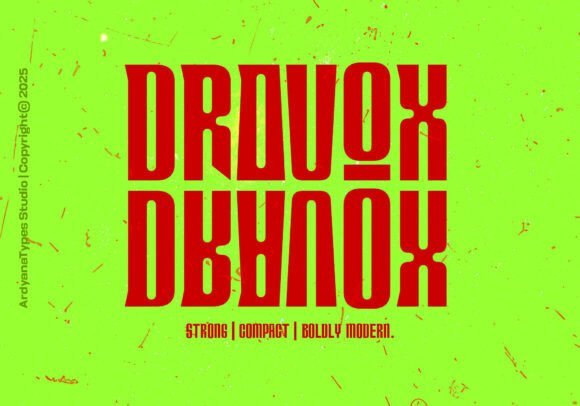
Meet Your New Partner in Rebellion: Dravox Font
Have you ever stared down a blank canvas, feeling the weight of a design project that demands boldness and intensity? The blank page stares back, taunting you with its emptiness. It’s moments like these that call for a typeface that can level up your design game and leave a lasting impression. Enter Dravox Font, a display font that embodies the raw energy of the Wild West, infused with a sharp, contemporary edge.
This heavy, all-caps typeface is a game-changer for designers who crave a visual statement that refuses to be ignored. Dravox Font is expertly suited for high-impact projects that require attention-grabbing designs, from heavy rock album covers to edgy streetwear branding. With its condensed verticality, dramatic serifs, and rough texture, this font is the perfect tool for conveying intensity, durability, and a bold, rebellious statement that’s impossible to ignore.
Dravox Font Key Features
- Font Family: Dravox comes in 6 unique font styles, each with its own distinct characteristics.
- Language Support: Dravox supports over 200 languages, including Latin, Cyrillic, and Greek scripts, making it a versatile font option.
- Unique Characteristics: Dravox features a unique blend of modern and vintage elements, with subtle flourishes and decorative details that add a touch of elegance to any design.
Dravox Font Review
Overall, I have mixed feelings about the Dravox font. Here are some points that caught my attention:
- Unique and modern aesthetic: Dravox font has a sleek and futuristic look that can elevate the design of any project.
- Wide range of weights and styles: The font family offers various weights and styles, making it easy to find the perfect match for your design needs.
- Good legibility: The font is clear and easy to read, even at smaller font sizes.
- Lack of expressiveness: Some users might find the font too sterile or lacking in character, which can make it difficult to convey certain emotions or moods.
- Not suitable for body text: While Dravox font is great for headings and titles, it may not be the best choice for large blocks of body text due to its modern and condensed nature.
- Not as versatile as other fonts: Dravox font is better suited for modern and tech-related projects, but it may not be the best choice for more traditional or vintage-style designs.
In conclusion, the Dravox font is a solid choice for modern design projects that require a sleek and futuristic look. However, it may not be the best fit for every project or design style.
Dravox Font is ideal for use in creative and artistic projects, such as:
- Graphic design
- Typography-based art
- Choose a few key words or phrases to feature in the poster.
- Use the Dravox font to typeset these words, experimenting with different font sizes, colors, and arrangements.
- Add bold geometric shapes and bright colors to create visual interest and balance out the typography.
- Use bold colors to create contrast and make the Dravox font stand out.
- Experiment with different shape sizes and arrangements to create a dynamic composition.
- Consider adding textures or patterns to add depth and visual interest.
- Choose a selection of inspirational quotes that resonate with your audience.
Dravox Font Creative Projects
Project 1: Dravox Typography Poster
Create a visually striking poster that showcases the unique characteristics of the Dravox font. Use the font as the primary design element and combine it with bold colors and geometric shapes.
To use Dravox Font in this project:
Project 2: Dravox Quote Journal
Create a beautifully designed journal that features inspirational quotes set in the Dravox font. Use the font to create a sense of elegance and sophistication.
To use Dravox Font in this project: